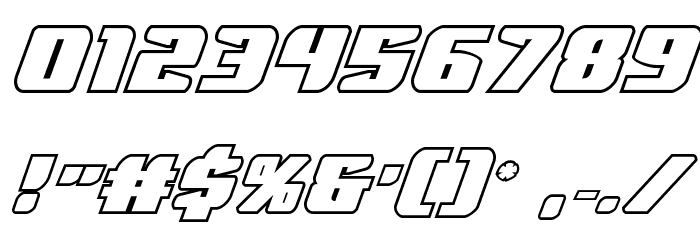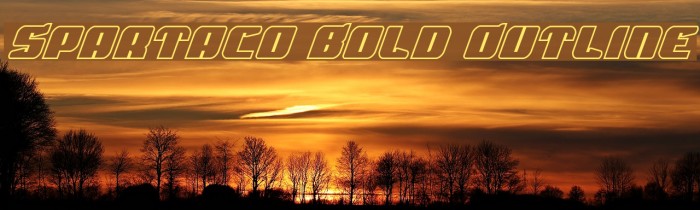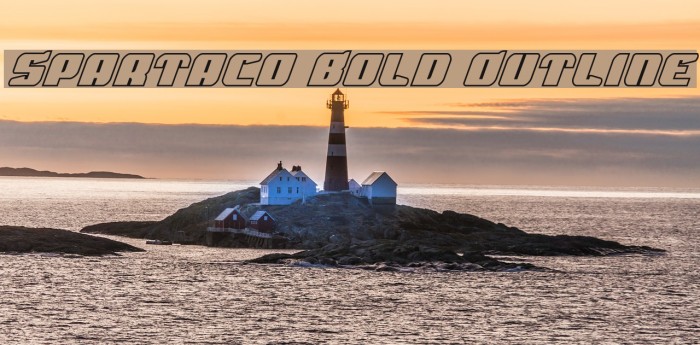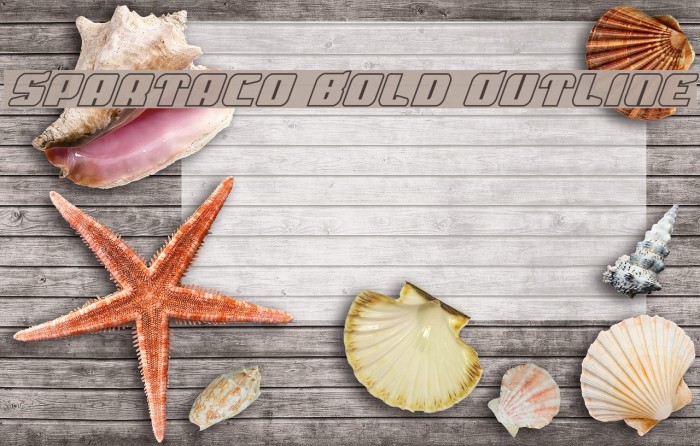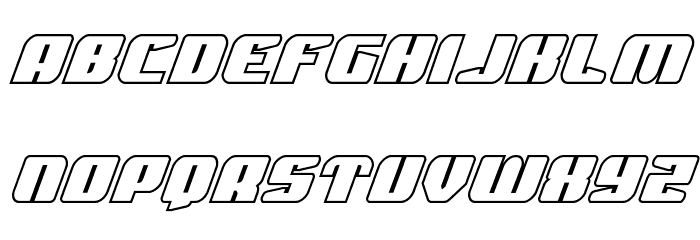
Spartaco Bold Outline Font
This font features a bold, outlined style with a modern and dynamic appearance. The characters are designed with a strong geometric influence, showcasing sharp angles and clean lines. The outline effect gives each letter a distinct presence, making it stand out prominently. The uppercase and lowercase letters maintain a consistent design, with the numbers and special characters following the same stylistic approach. This font is ideal for projects that require a bold statement, offering a unique combination of strength and clarity.
A bold, outlined font with a modern, geometric style.
• Proposed Projects: Ideal for branding, posters, headlines, and any design that requires a strong visual impact.